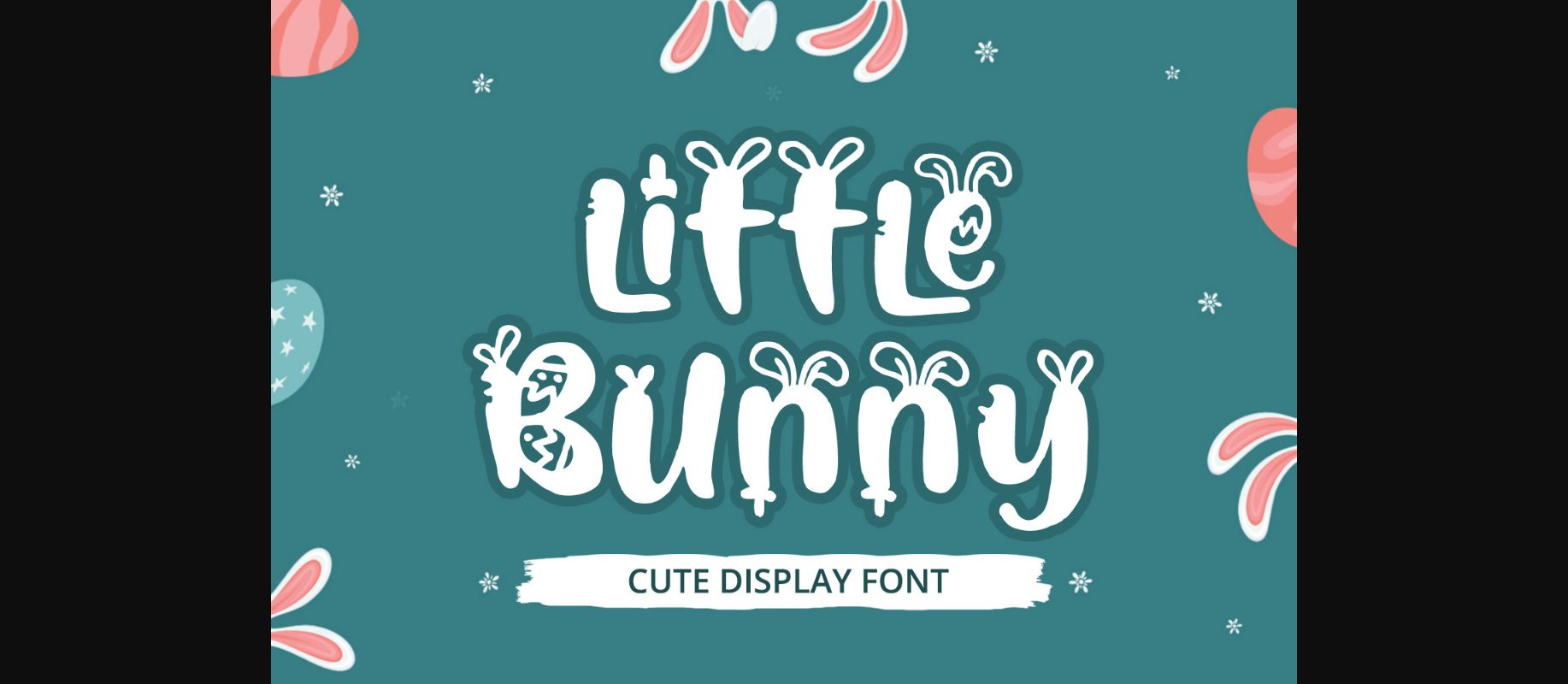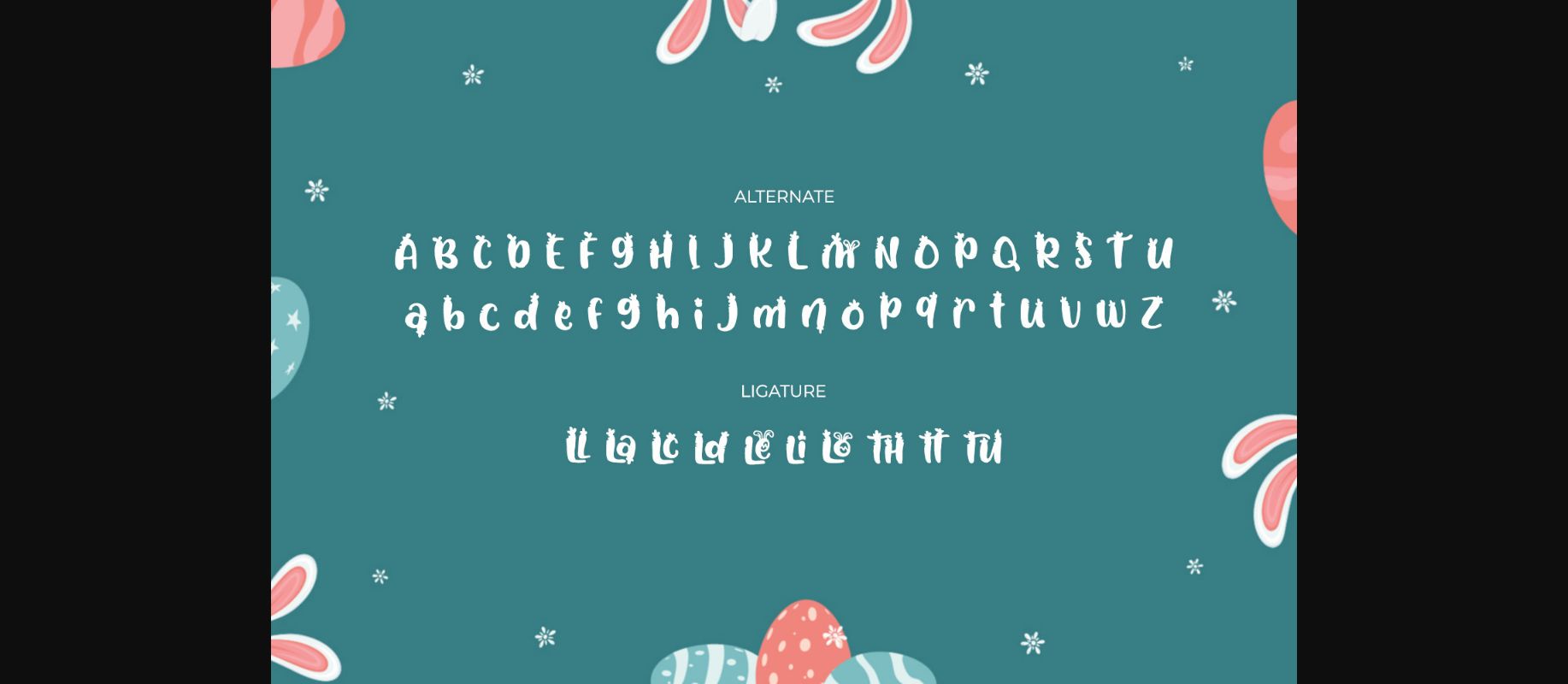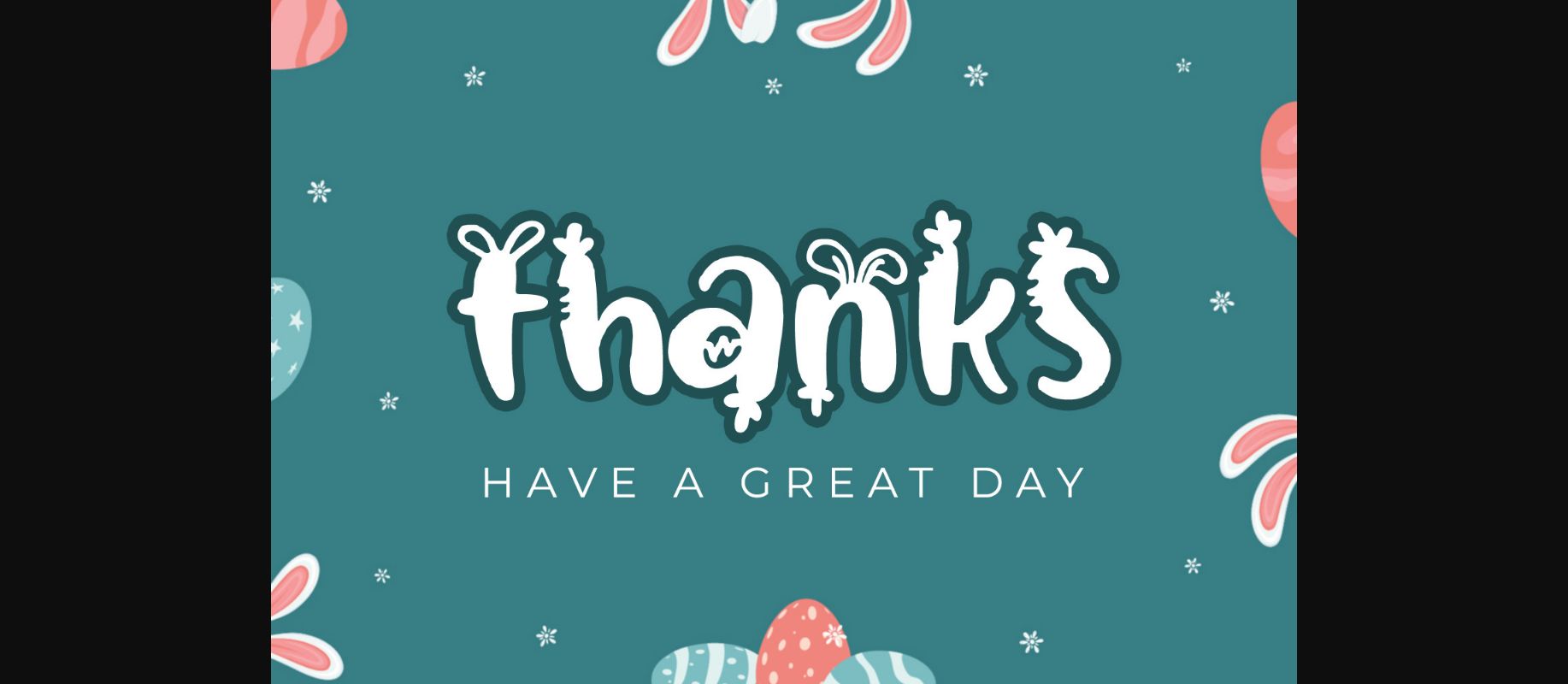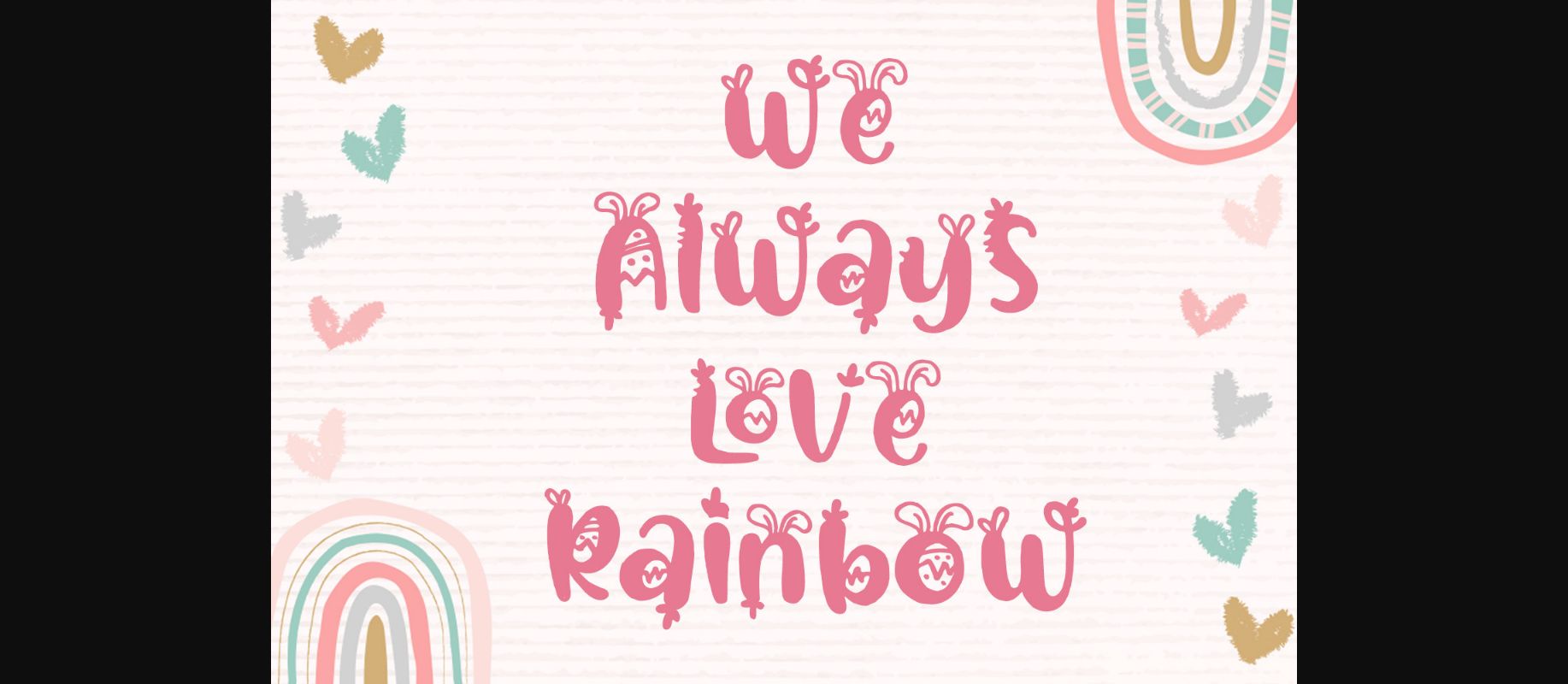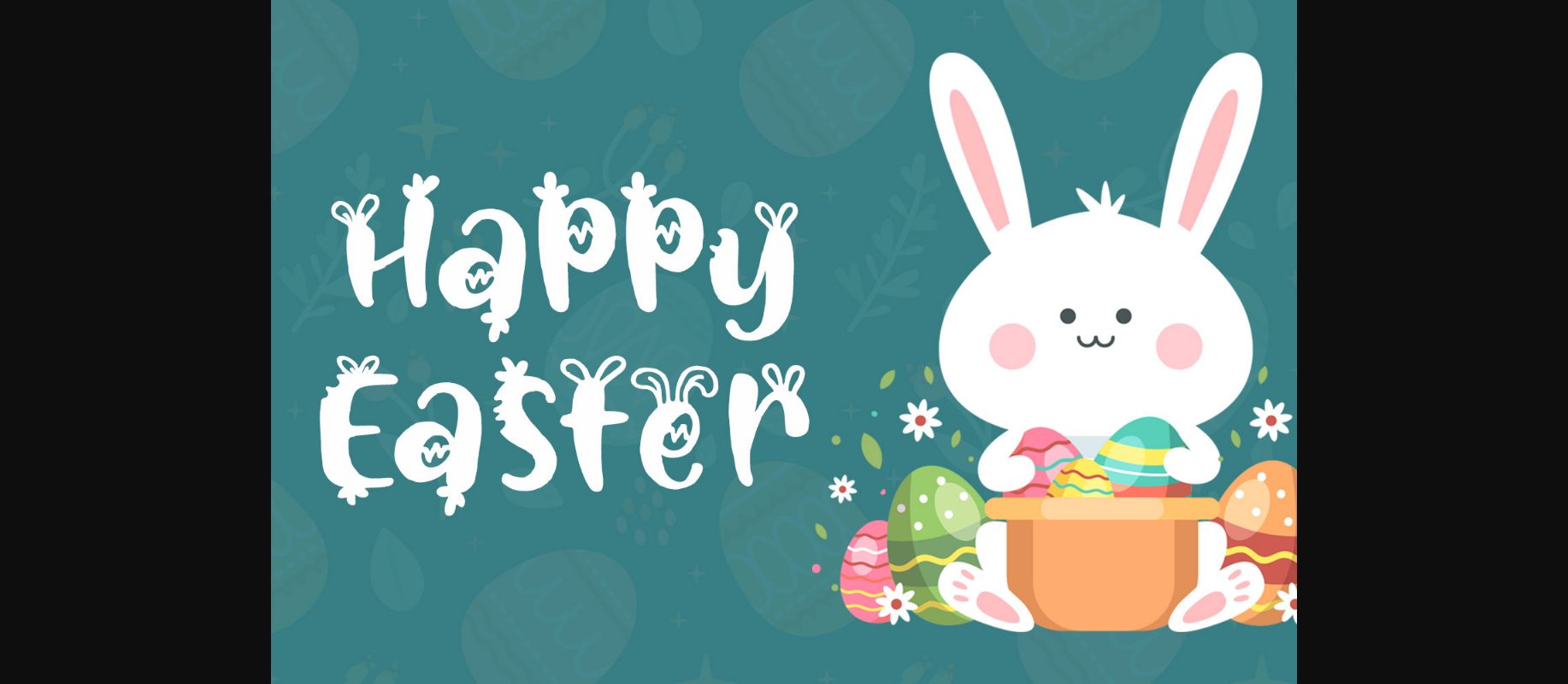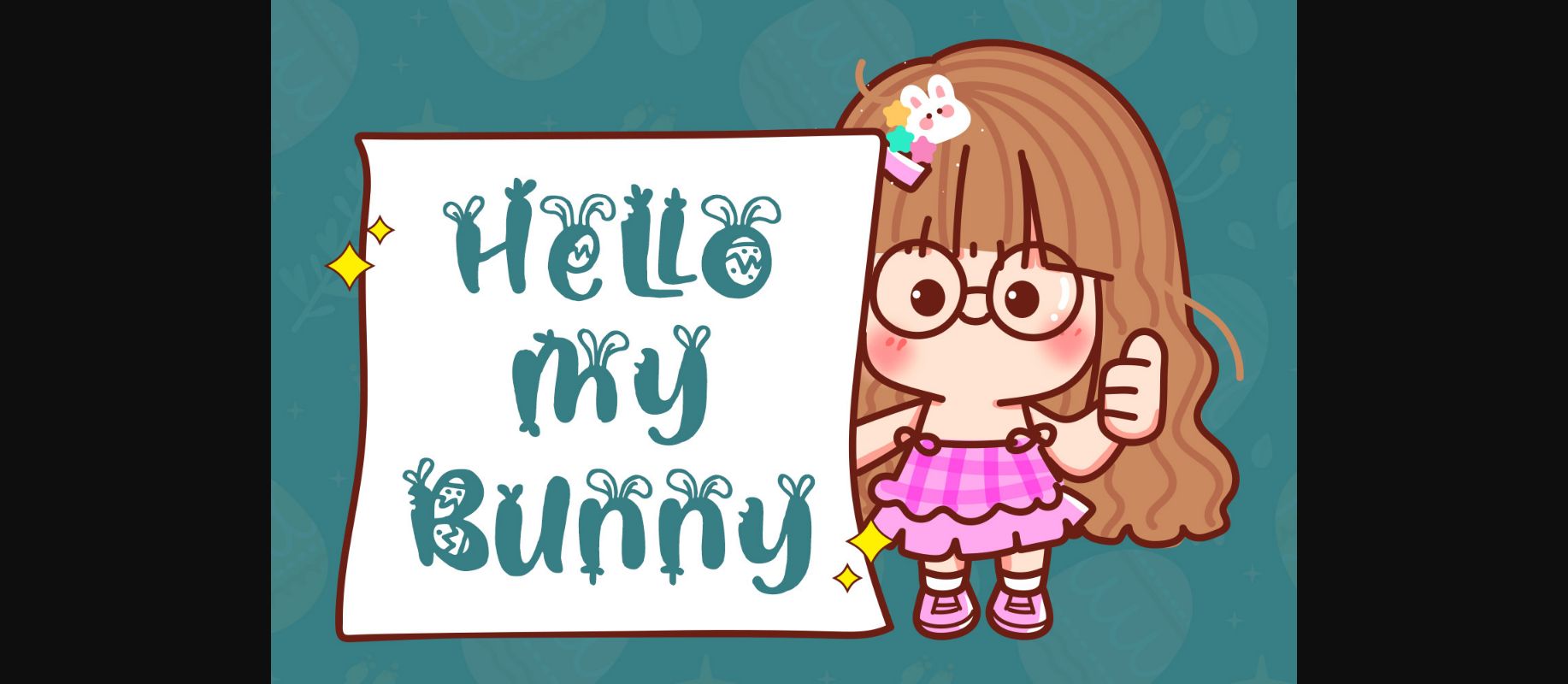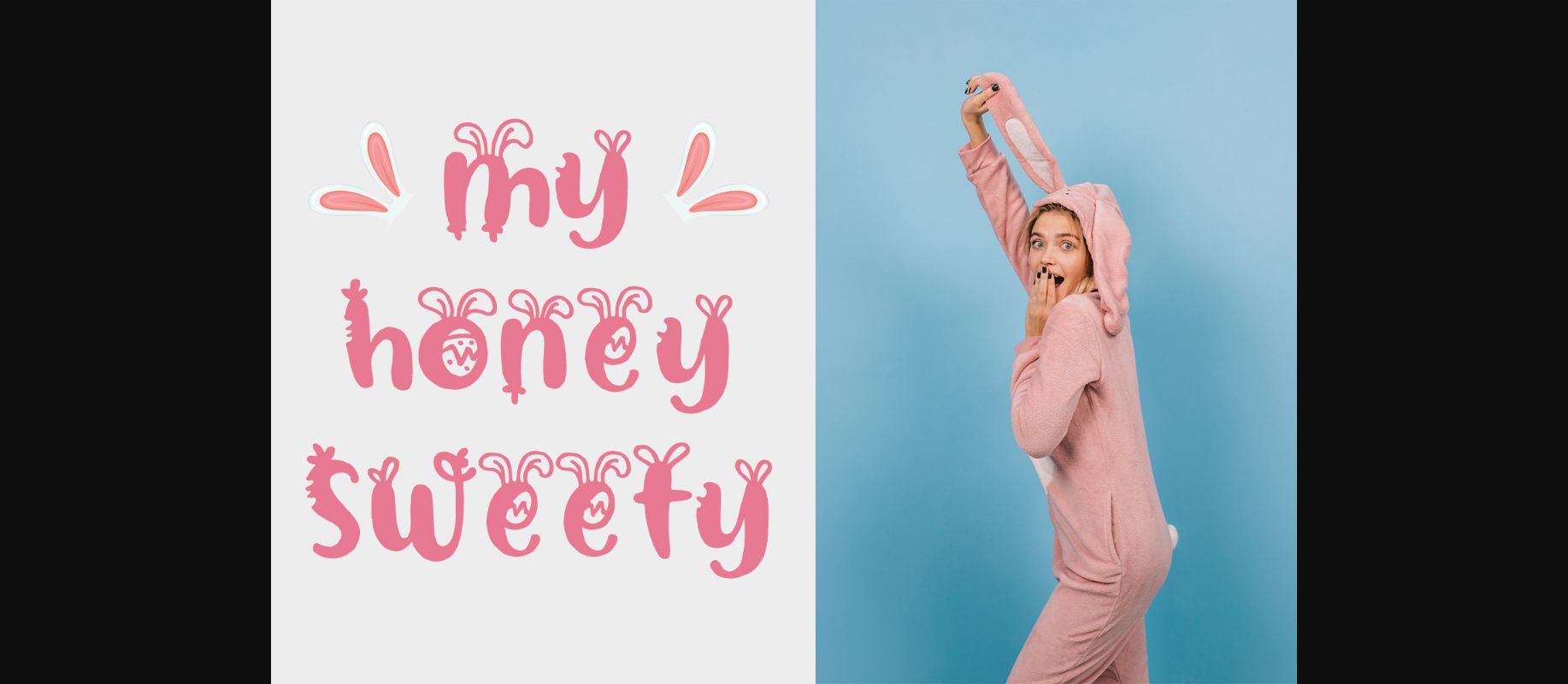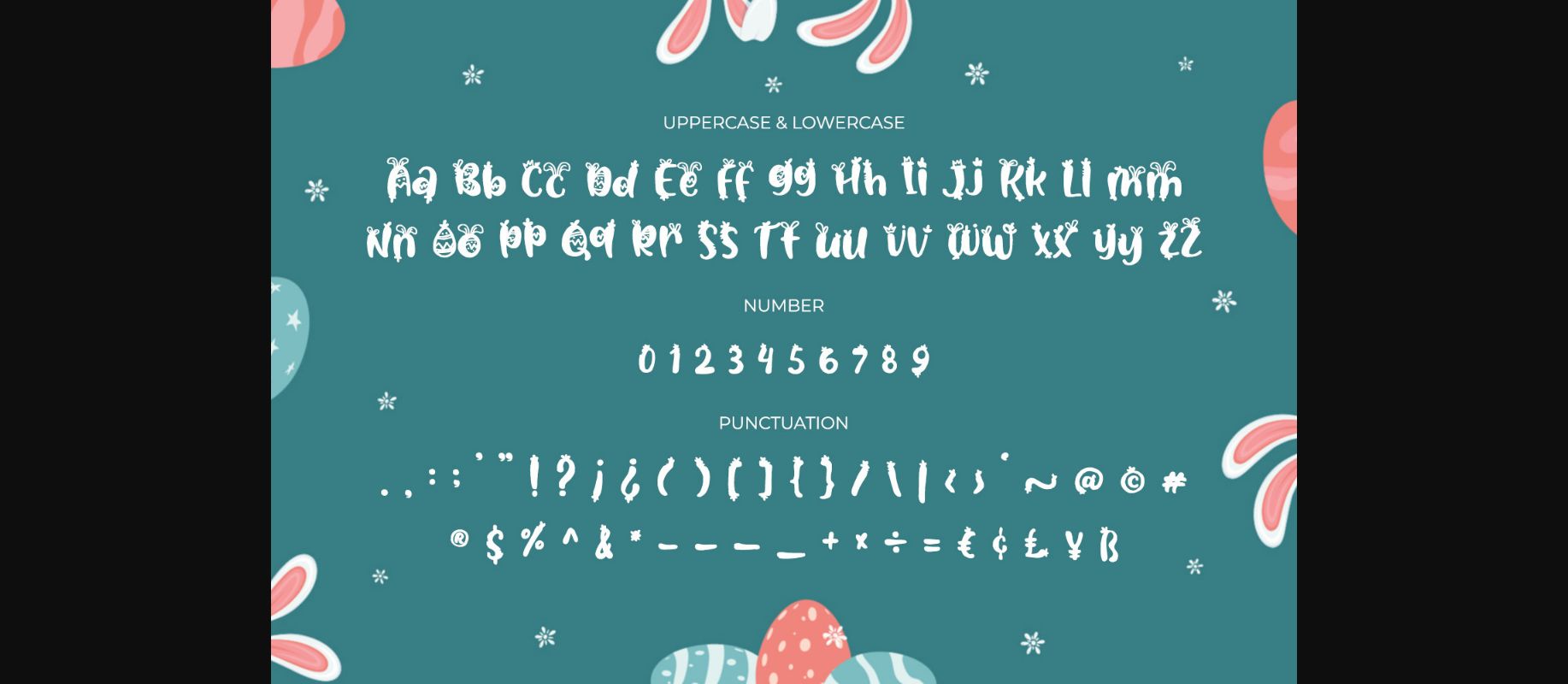
Little Bunny Font
About Little Bunny Font
Little Bunny is a cute decorative font with fun and playful feels. It looks perfect when used for branding, logos, lettering, apparel, magazines, packaging, posters, shopping bags, t-shirts, book covers, special events, and other creative designs.